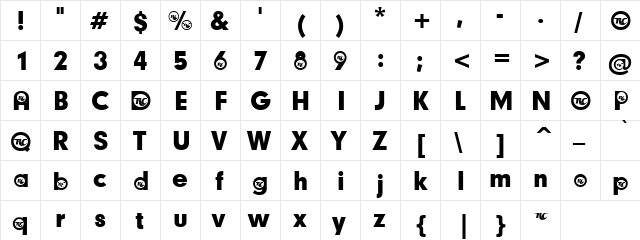
Air Cooler Regular
Design Context for Air Cooler Typeface
Air Cooler is a composed and adaptable typeface that performs quietly and consistently across a wide range of design contexts.
Pro Tip: Pair Air Cooler with a font of contrasting weight or personality to build a more expressive typographic hierarchy.